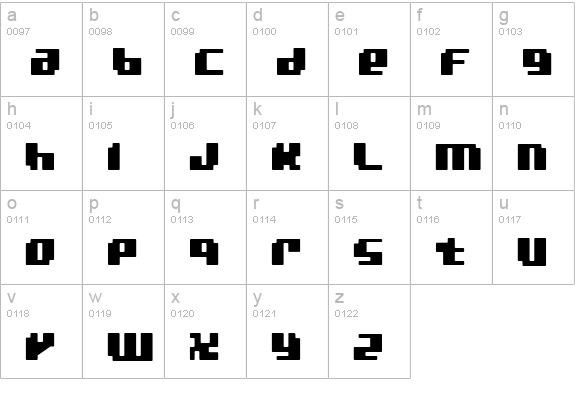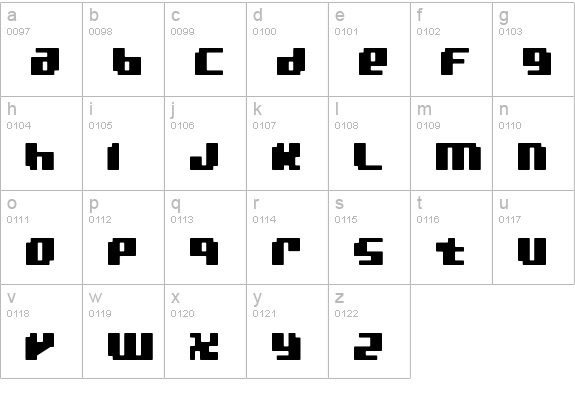
The Bad Robot font is a bold and edgy typeface that exudes a futuristic and mechanical aesthetic, perfect for adding a touch of sci-fi flair to your design projects. With its angular lines and unique character shapes, this font will make your text stand out and grab attention. Whether you're working on a poster, logo, or website, the Bad Robot font is sure to make a bold statement. Best of all, the Bad Robot font is available for free download at FontsMarket.com. Simply head over to the website to access this striking typeface and elevate your designs with its modern and dynamic style. Don't miss out on this opportunity to add a touch of futuristic cool to your projects with the Bad Robot font!